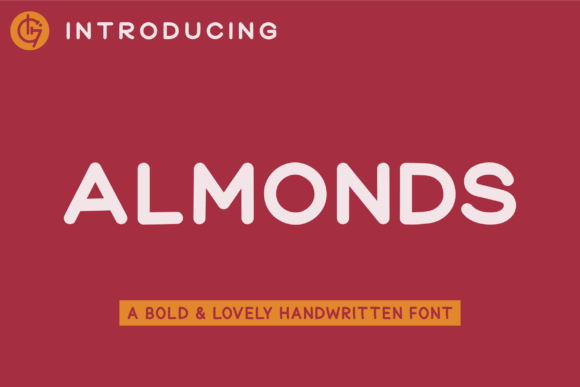
Ah, the eternal quest for the perfect font. I recall working on a project for a boutique brand, tasked with creating a logo that exuded warmth and sophistication. The client wanted a font that was both bold and charming, but I was struggling to find something that fit the bill. That’s when I stumbled upon Almonds, a handwritten font that has since become a staple in my design toolkit.
Almonds Font: A Game-Changer for Designers
Almonds is a unique blend of strong, bold presence and charming, personal touch. This font is ideal for branding, packaging, social media, and print, adding a touch of warmth and authenticity to any design. With Almonds, you can achieve a professional yet approachable aesthetic that’s perfect for a wide range of projects.
• ✨ Unique and charming handwritten style
• ✅ Strong, bold presence that commands attention
• 🌈 Versatile and suitable for various design applications
• 💻 Excellent OpenType features and glyphs
While Almonds is an exceptional font, there are a few minor quirks to be aware of:
• 🤔 Some characters may require manual kerning for optimal spacing
• ⚠️ Limited availability of certain special characters
The Story Behind Almonds
Almonds was designed by a talented typographer who sought to create a font that combined the warmth of handwritten scripts with the boldness of sans-serif fonts. Inspired by the natural curves of handwritten letters, Almonds is a unique and charming font that’s perfect for designers looking to add a personal touch to their work.
Author Goliatte Studio
Q: What type of projects is Almonds best suited for?
A: Almonds is versatile and suitable for various design applications, including branding, packaging, social media, and print.
Q: Does Almonds support OpenType features?
A: Yes, Almonds supports OpenType features, including stylistic alternates, glyphs, and ligatures, allowing you to add visual interest to your designs.